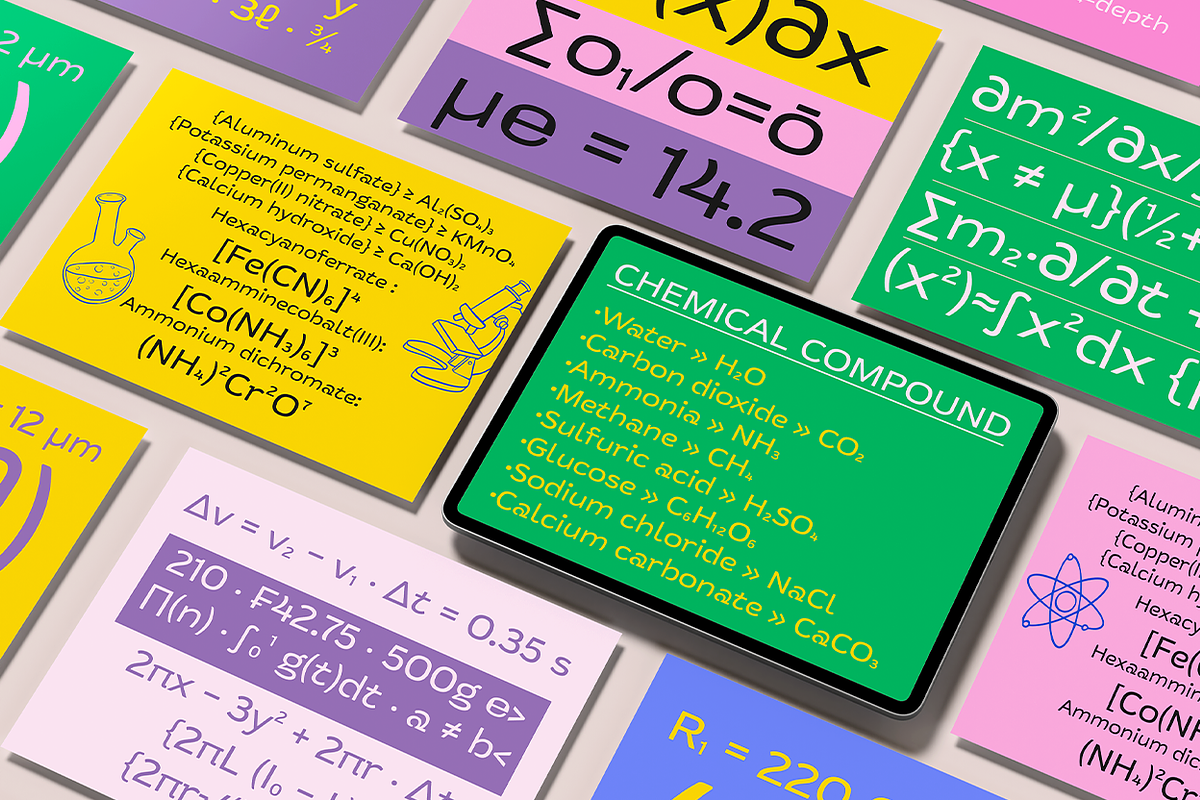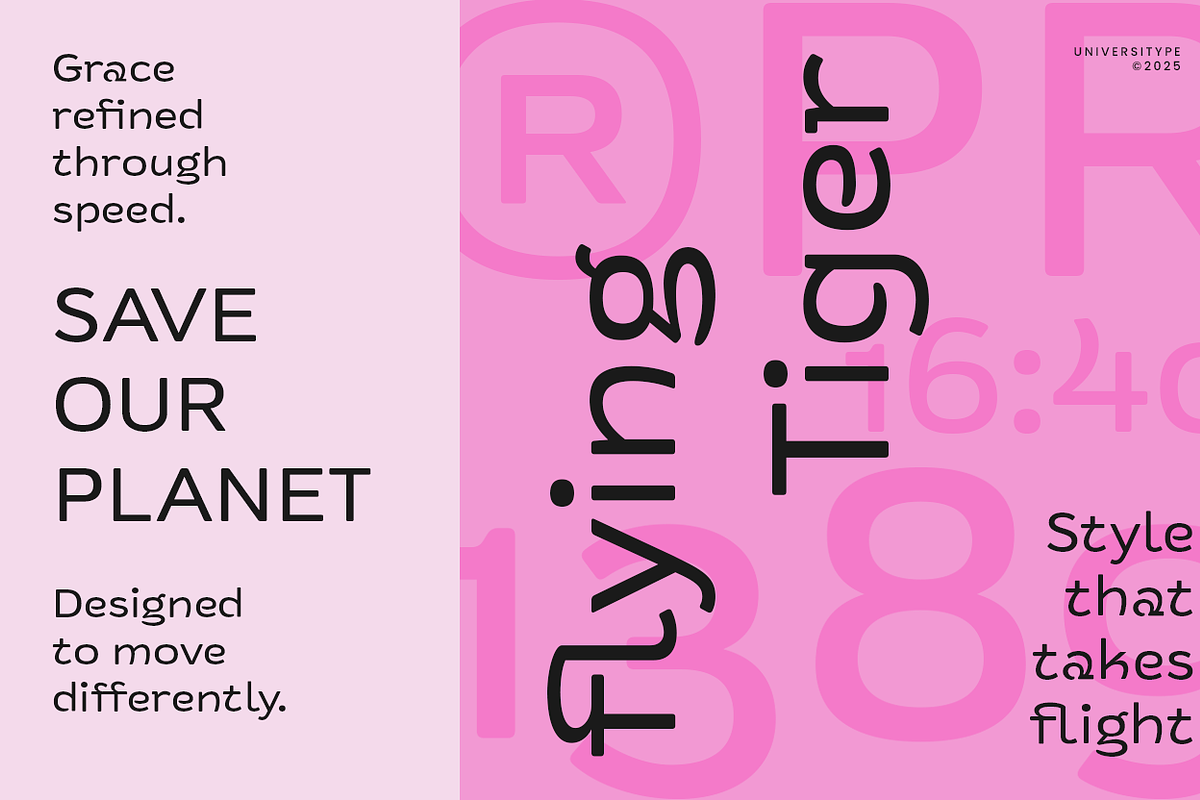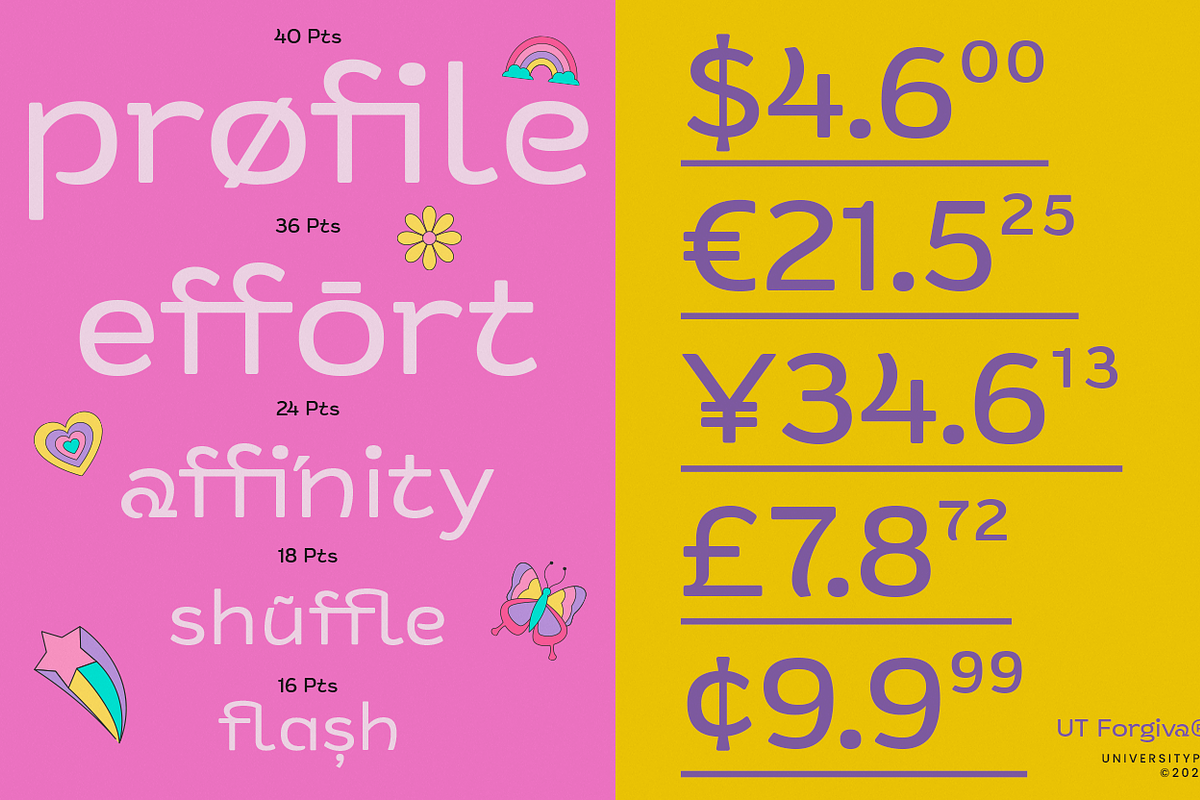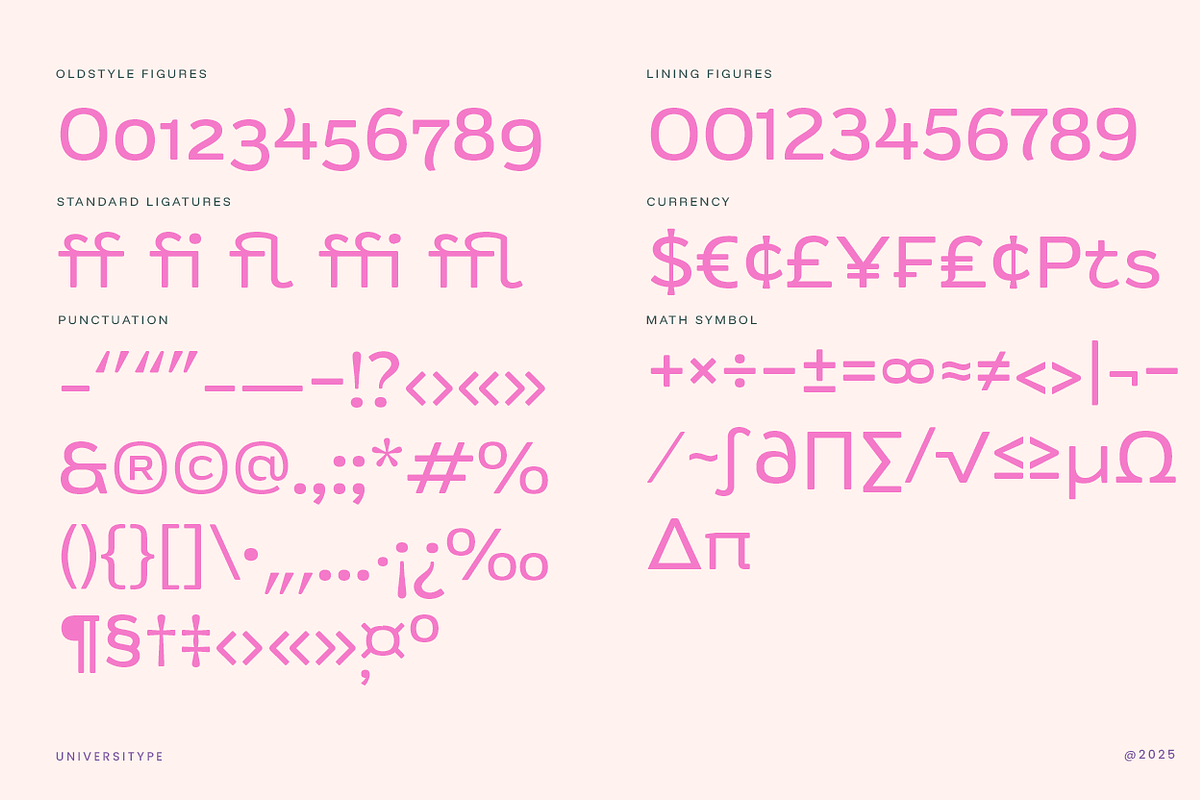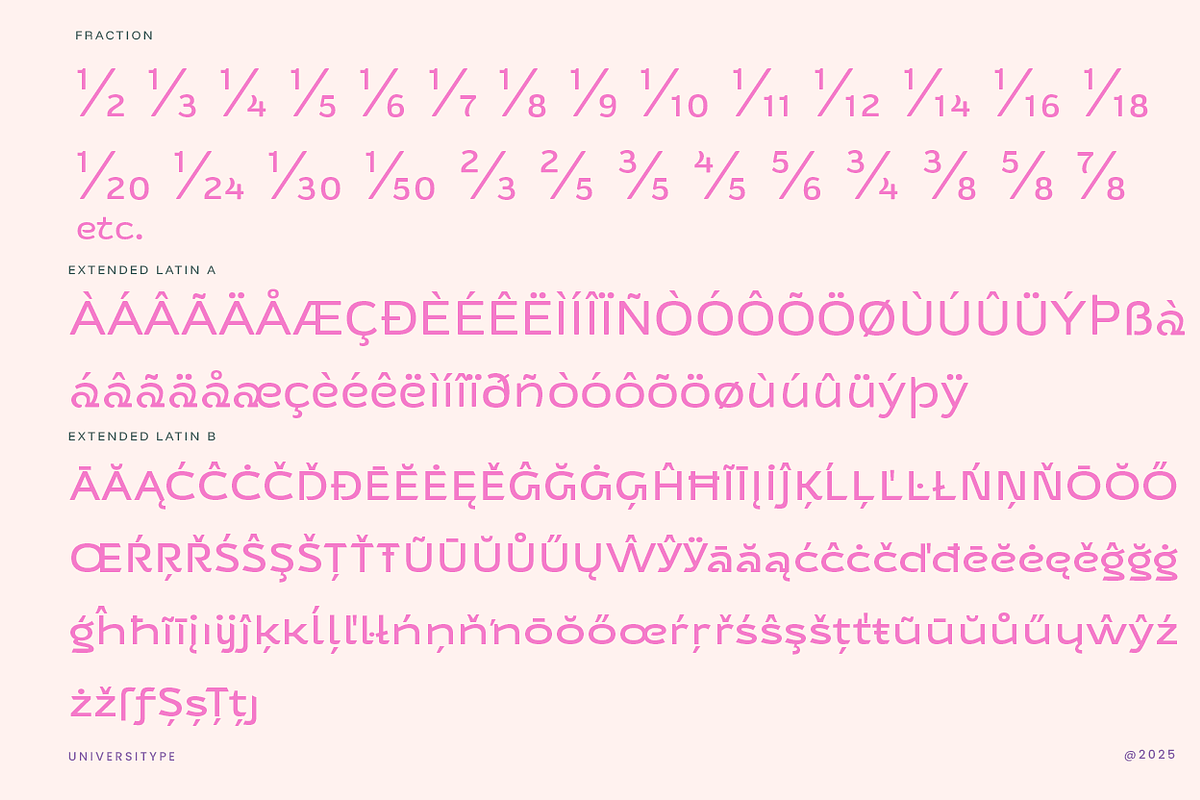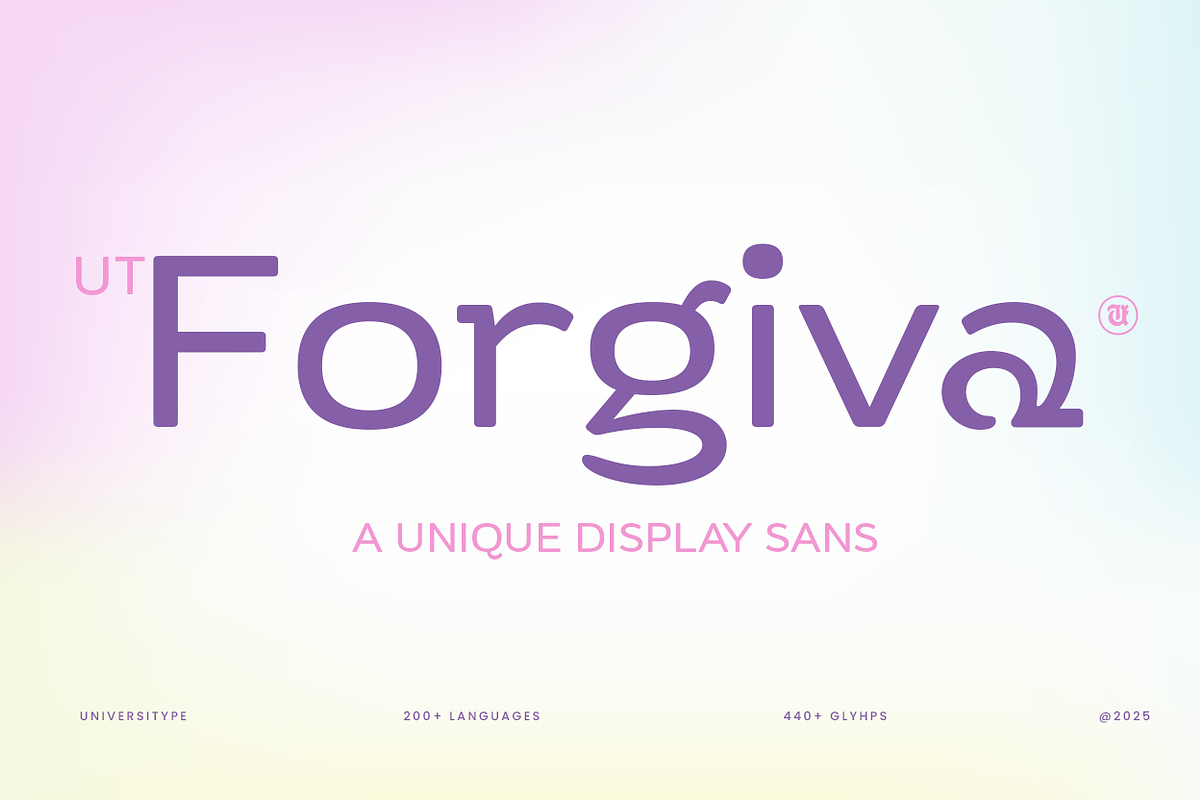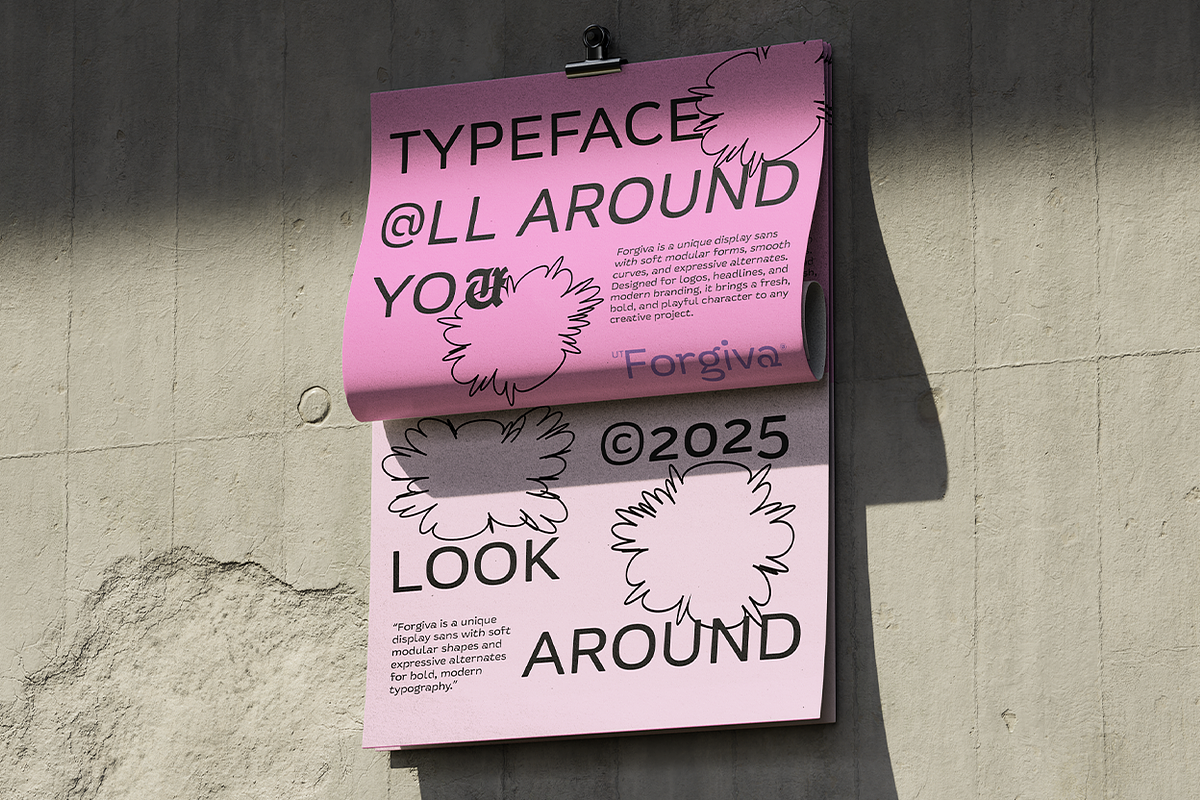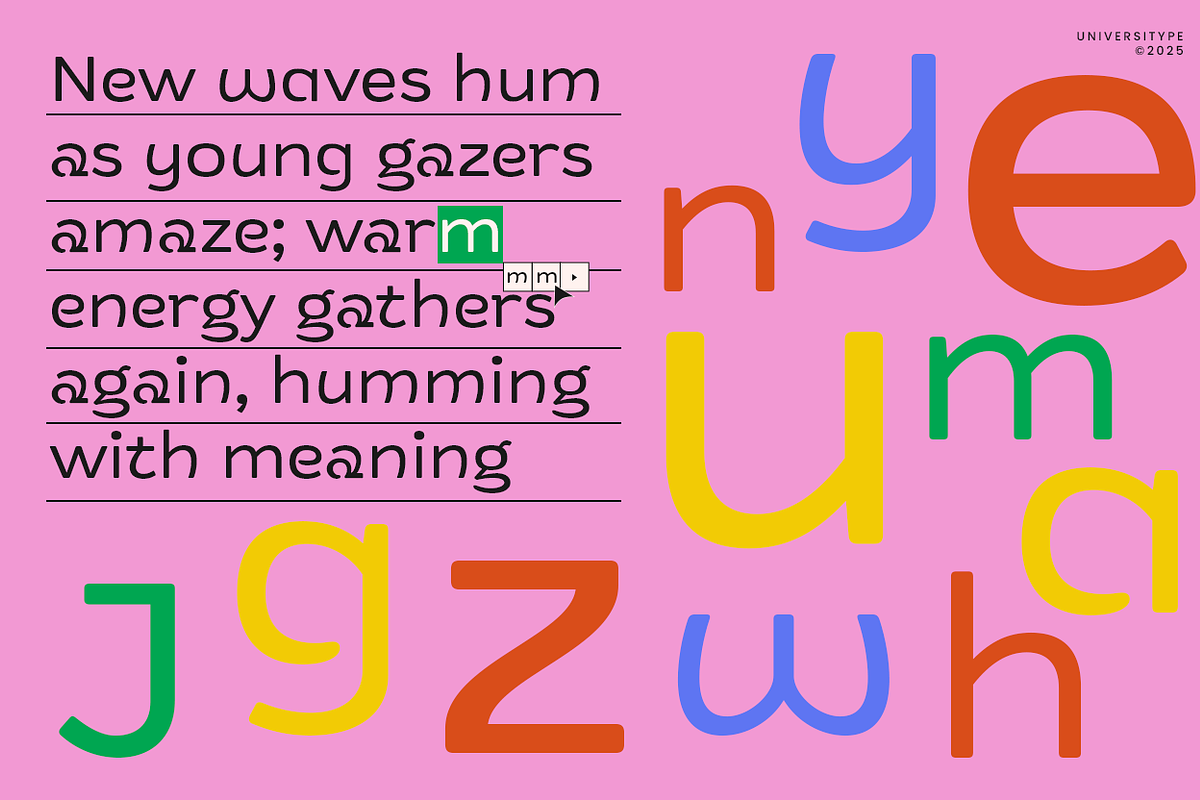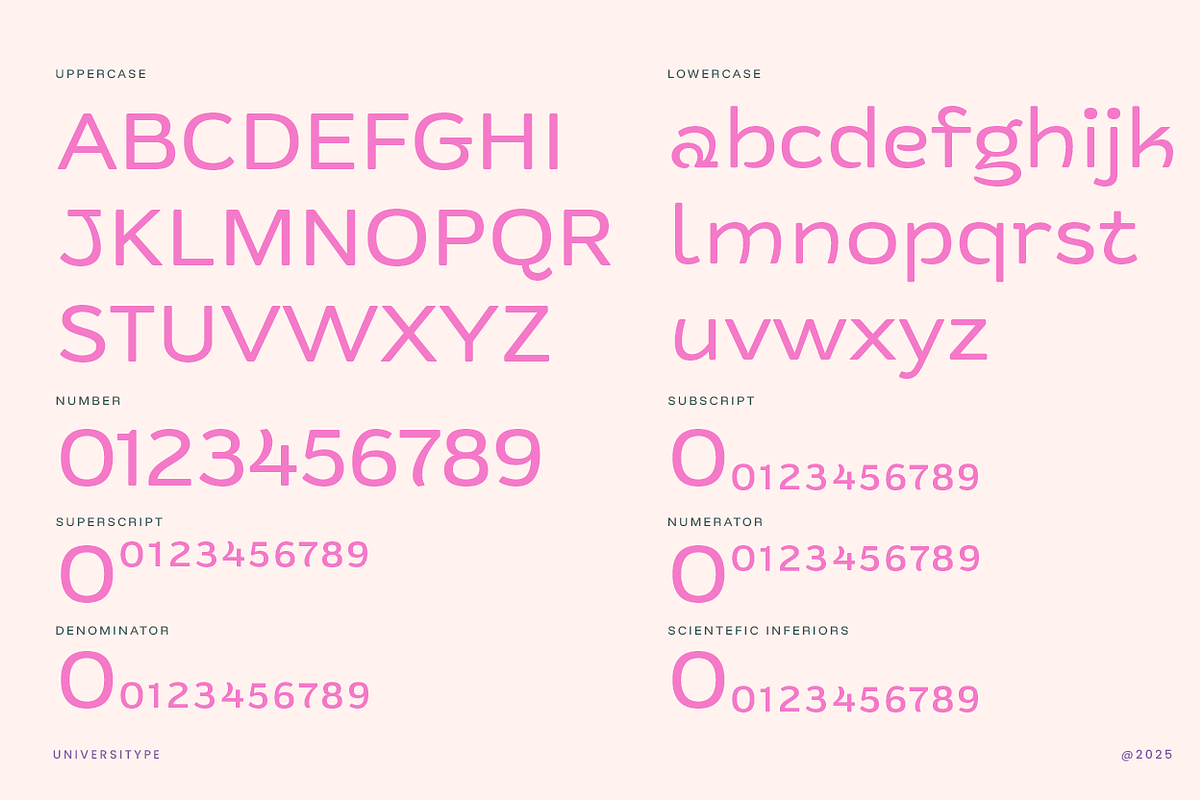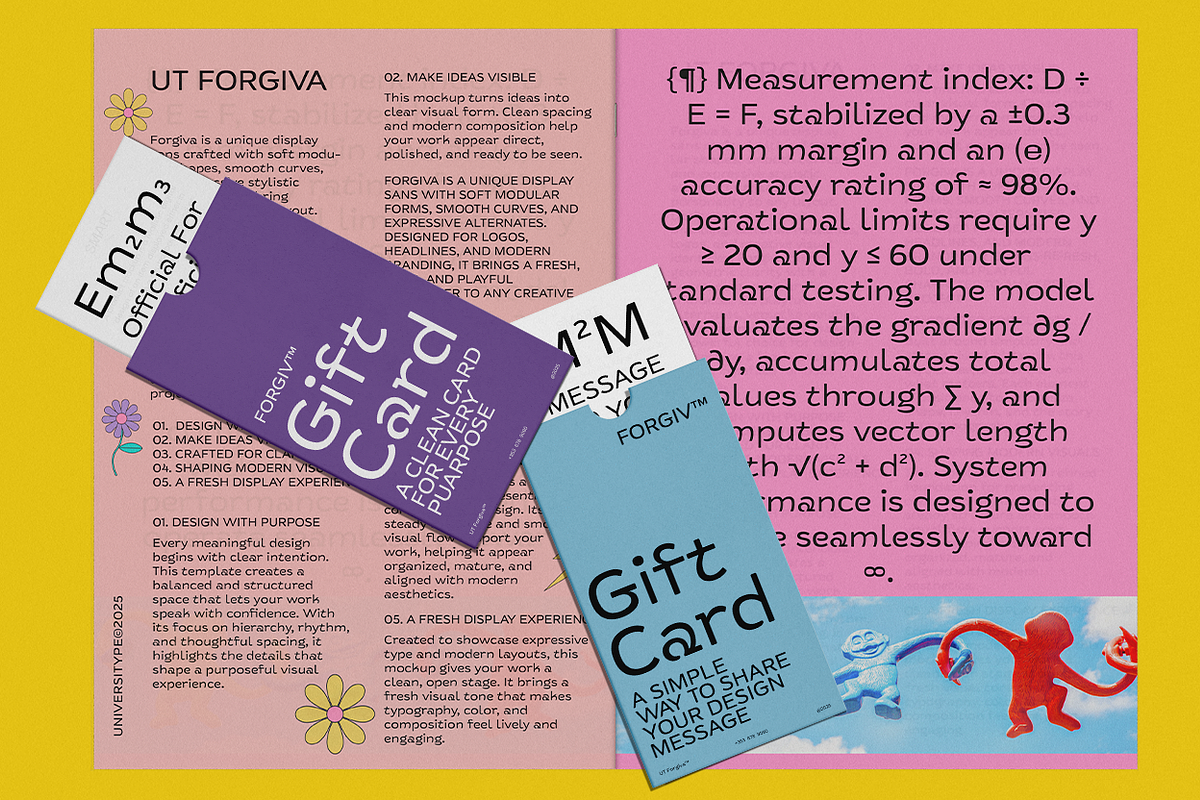
UT Forgiva - A Unique Display Sans
Forgiva – A Unique Display Sans
UT Forgiva is a soft, modern display sans built with smooth curves, rounded shapes, and a friendly personality. Its gentle forms bring a fresh, approachable tone to branding, packaging, digital interfaces, and creative projects that need clarity with a touch of playfulness. With expressive characters, balanced proportions, and over 400 carefully crafted glyphs, Forgiva gives your visuals a calm, contemporary feel without losing character.
Designed for standout headlines, clean layouts, and logotypes with charm, this typeface adds a polished yet welcoming voice to any design. Whether you’re shaping lifestyle brands, crafting product labels, or building minimal UI elements, Forgiva keeps your message clear, stylish, and expressive.
- 400+ glyphs
- Full Latin multilingual support (100+ languages)
- Standard ligatures
- Stylistic alternates
- Superscript / Subscript
- Numerator / Denominator
- Scientific inferiors
- Optimized kerning
- Branding and logo design
- Product packaging
- Stationery and lifestyle visuals
- Posters and editorial layouts
- Social media graphics
- App and web interfaces
- Kids, wellness, and creative projects